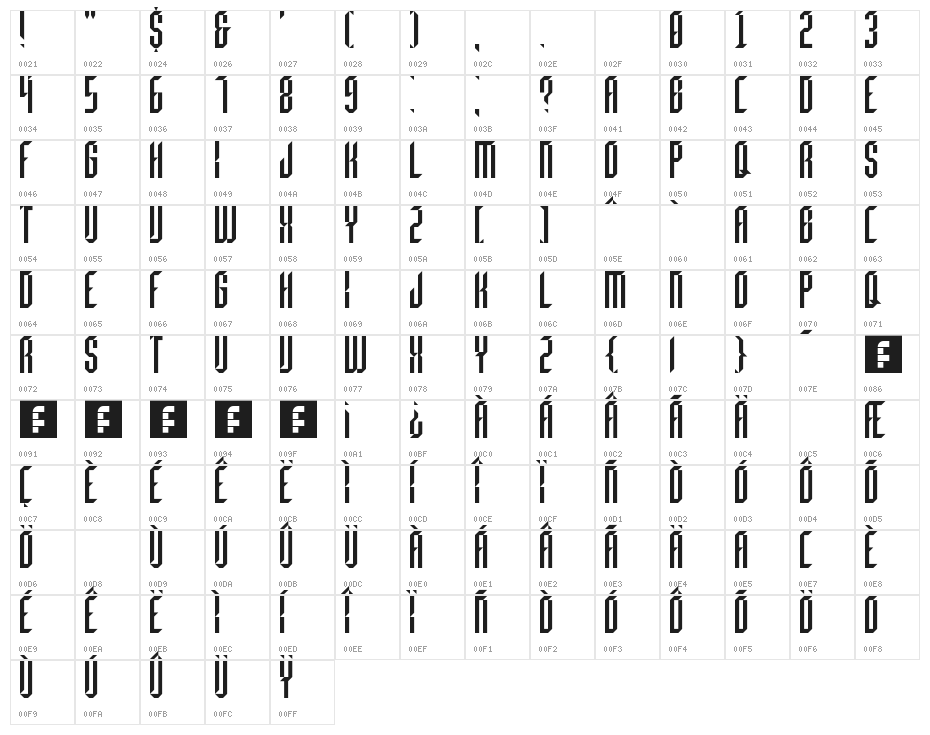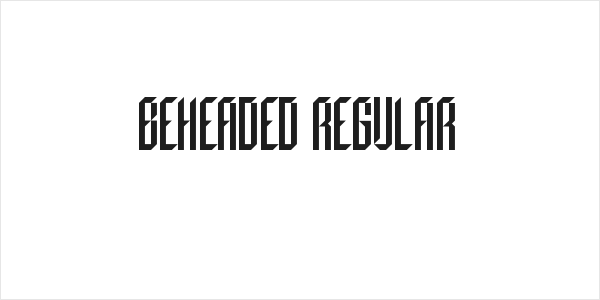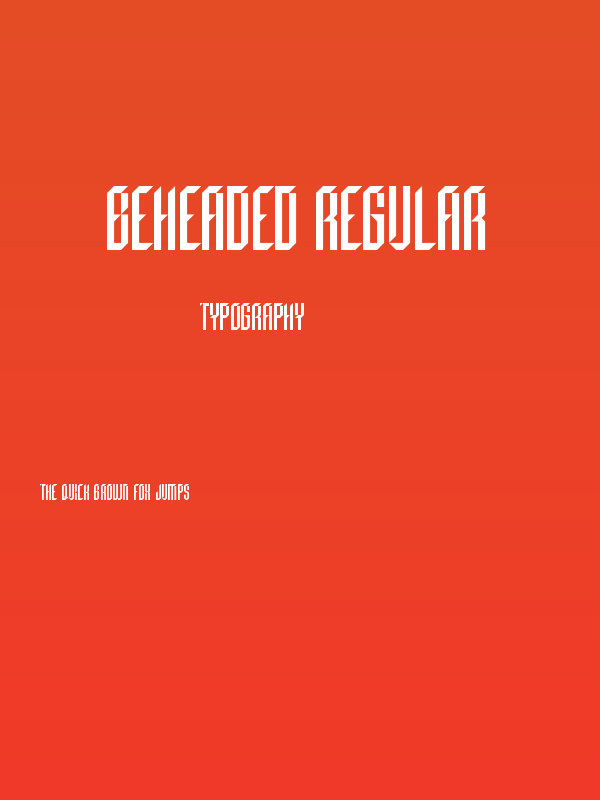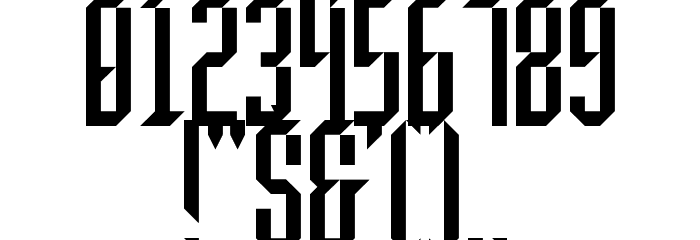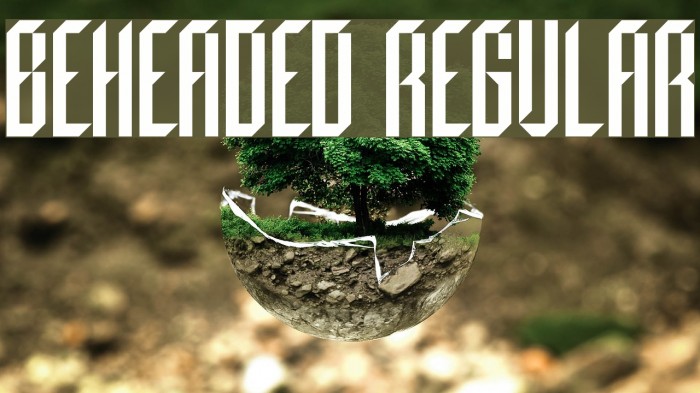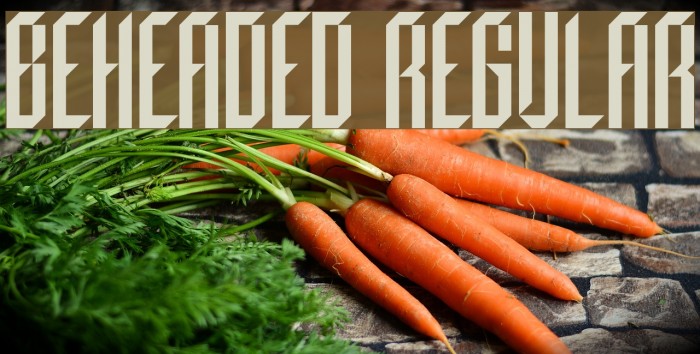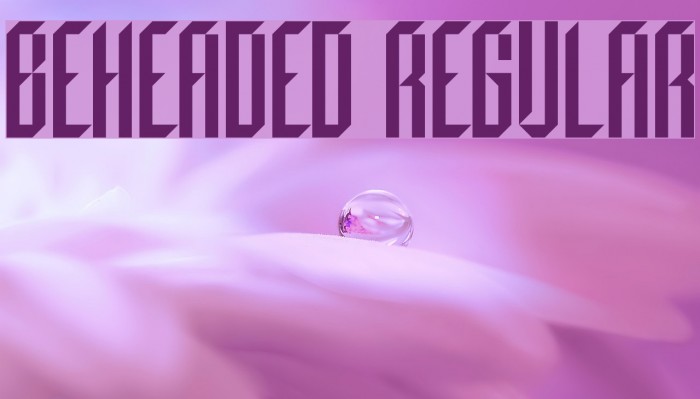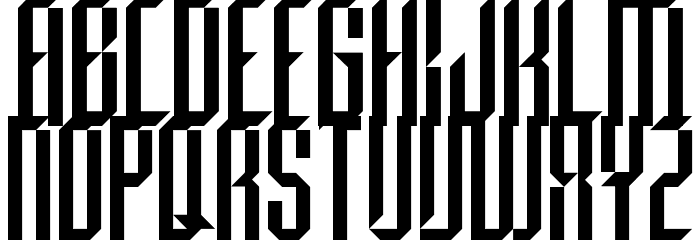
Beheaded Regular Font
Beheaded Regular Description
This font features a bold, geometric design with sharp angles and a blocky appearance. The characters are tightly spaced, creating a compact and cohesive look. The uppercase and lowercase letters maintain a consistent height, contributing to a uniform aesthetic. The numbers and special characters follow the same angular style, enhancing the overall design. This font's unique structure makes it stand out, offering a modern and edgy vibe suitable for eye-catching designs.
| Proposed Projects | Ideal for posters, album covers, and branding that requires a modern and edgy look. |